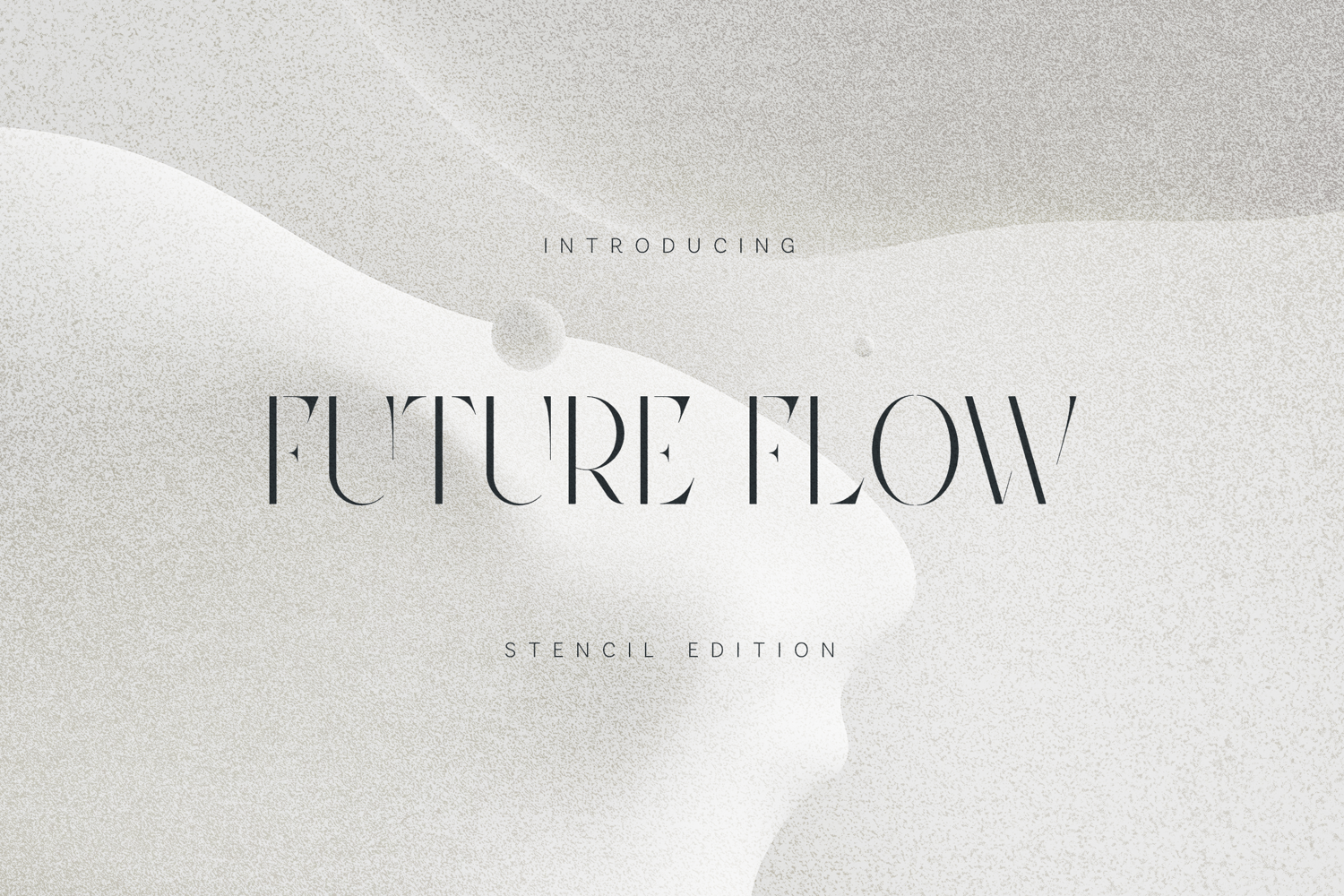
FUTURE FLOW Stencil Display Font
Future Flow – Stencil Edition is a modern display serif font that blends elegance with a futuristic edge. Defined by high-contrast strokes, elongated proportions, and refined stencil cuts, this typeface creates a distinctive balance between softness and structure.
Designed for impactful typography, Future Flow is ideal for posters, branding, editorial headlines, album covers, fashion projects, and experimental layouts. Its stencil construction introduces rhythm and negative space, giving text a sense of motion and contemporary sophistication while remaining clean and legible.
Future Flow – Stencil Edition is made for designers who want expressive, forward-looking typography—where elegance meets innovation and form flows into the future.
- Uppercase & lowercase letters
- Numbers & punctuation
- Multilingual support